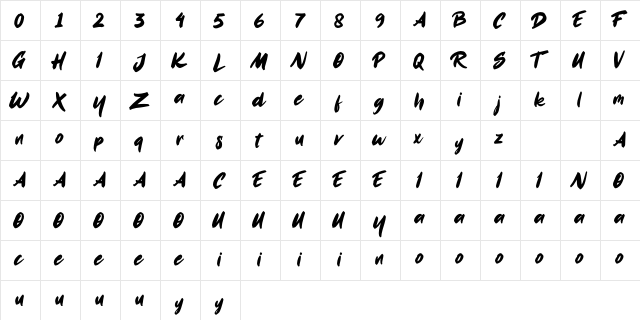
MonStreak Regular
Design Context for MonStreak Typeface
MonStreak is a composed and adaptable typeface that performs quietly and consistently across a wide range of design contexts.